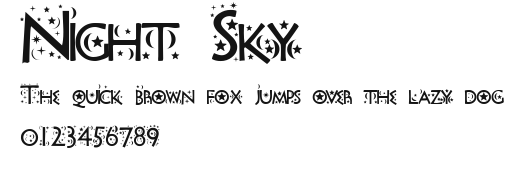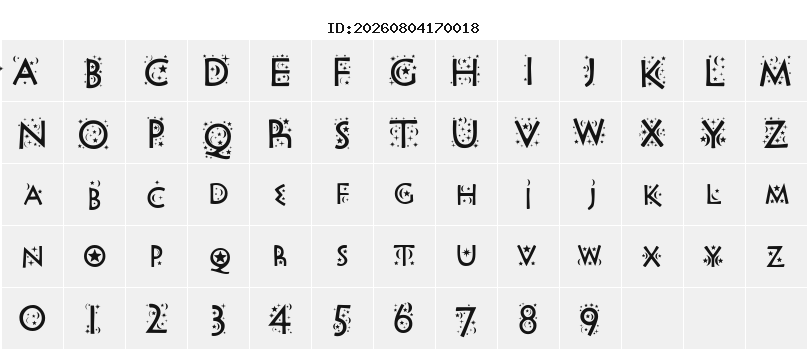
• Font Name: Night Sky
• Full Font Name: Night Sky
About Night Sky.ttf
Night Sky.ttf is a modern, elegant sans-serif font designed for ultimate readability and visual harmony. Perfect for branding, headlines, web design, and print materials.